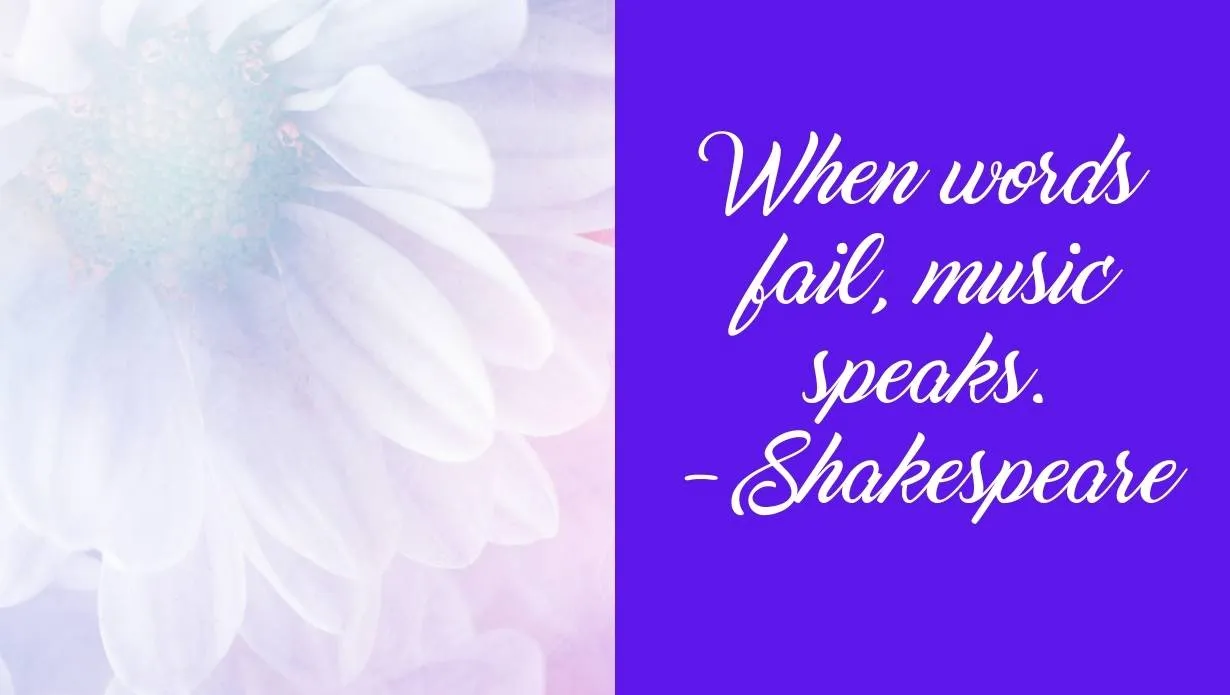
Marguerite Font was developed by StereoType Foundry. It belongs to the Calligraphy typeface. This charming Font has two styles: Regular and Italic. The font family includes 3 weights: light, regular, and bold. It is suitable for Adobe Illustrator and MS Word programs.
This classy typeface has more than 140 Glyphs and almost 190 characters. It is perfect for creating invitations, wedding cards, logos, and headlines. There is another typeface with the same features as Pristina Font.